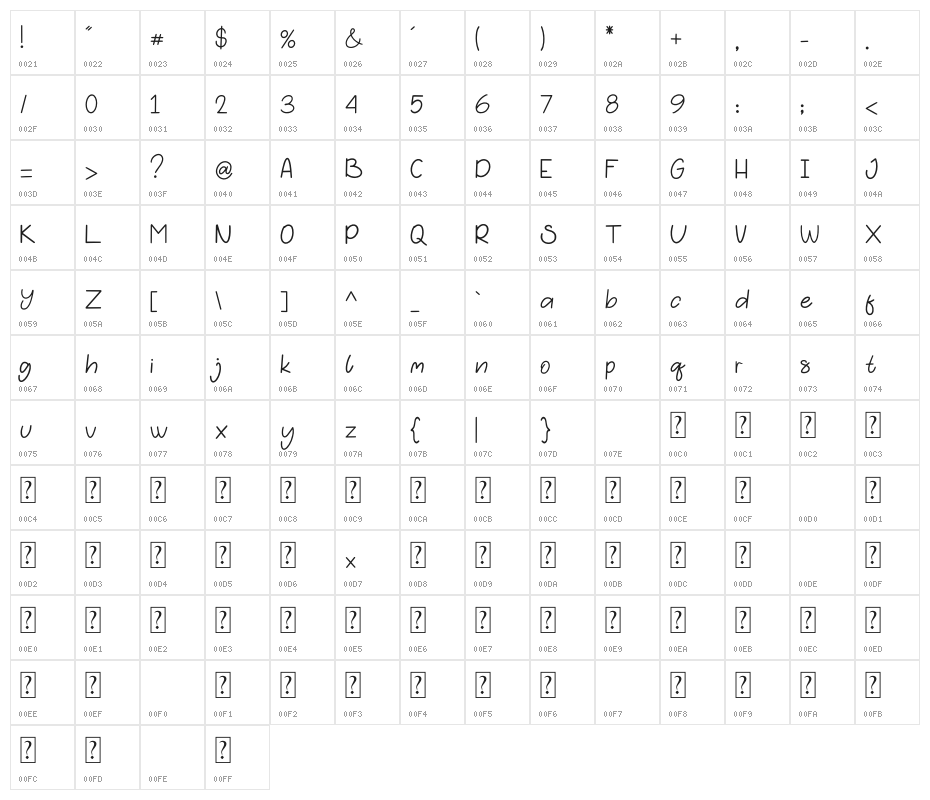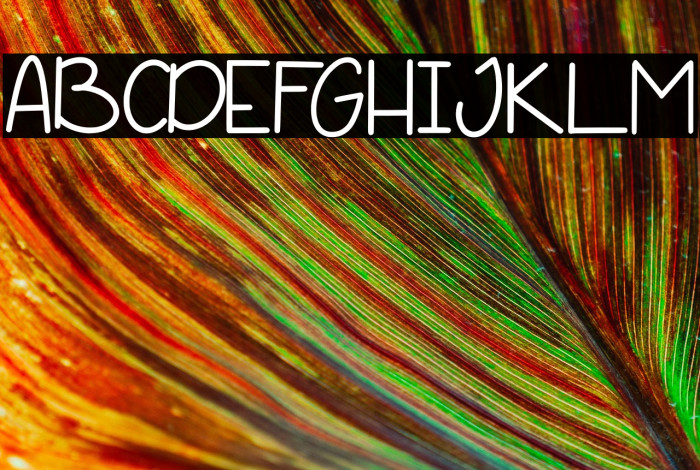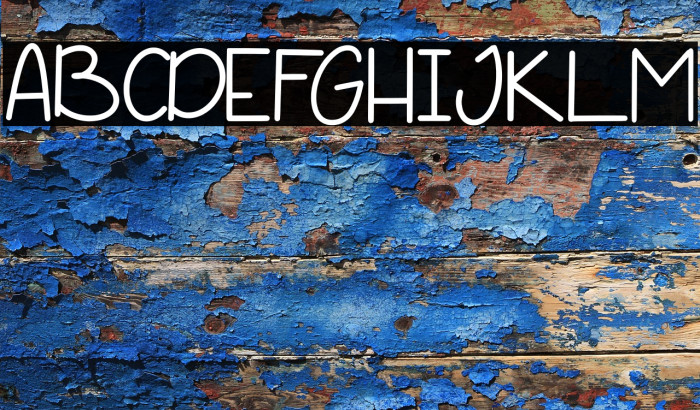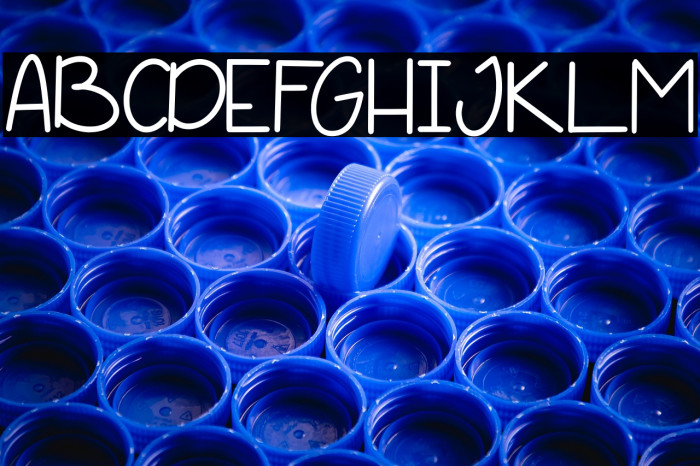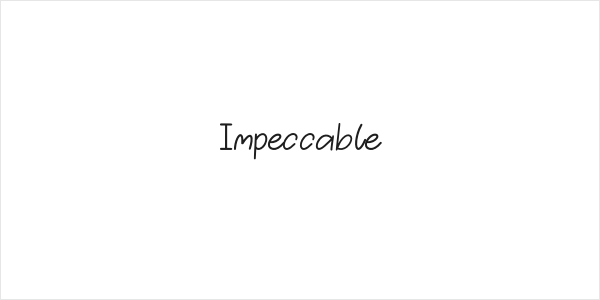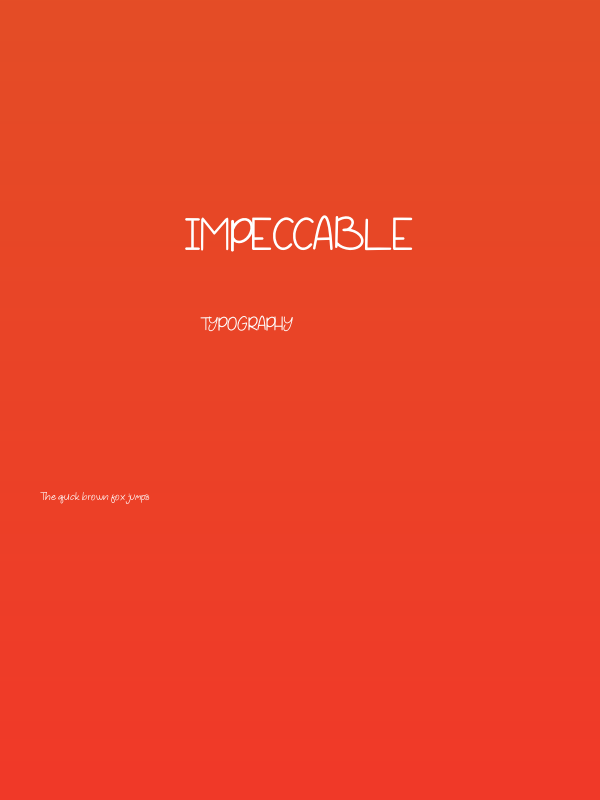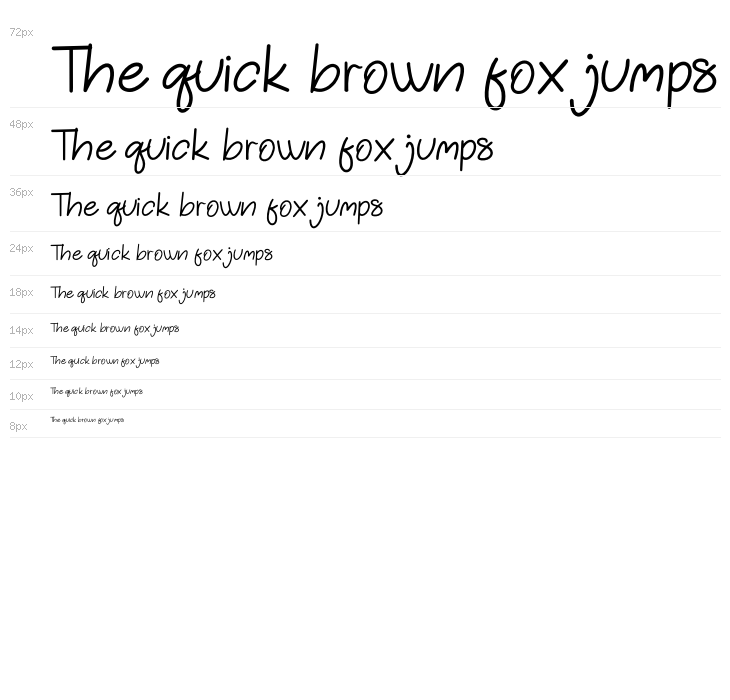
Impeccable Font
Impeccable Description
This font features a playful and casual handwritten style, characterized by its smooth curves and slightly irregular strokes. The uppercase letters are tall and narrow, while the lowercase letters have a more rounded and flowing appearance. The numbers and special characters maintain the same whimsical quality, making them easily legible yet distinctive. The overall design exudes a friendly and approachable vibe, suitable for projects that aim to convey warmth and creativity.
| Use Case | Logos, Invitations, Personal projects |
| Proposed Projects | Ideal for greeting cards, children's books, personal blogs, and creative branding projects. |